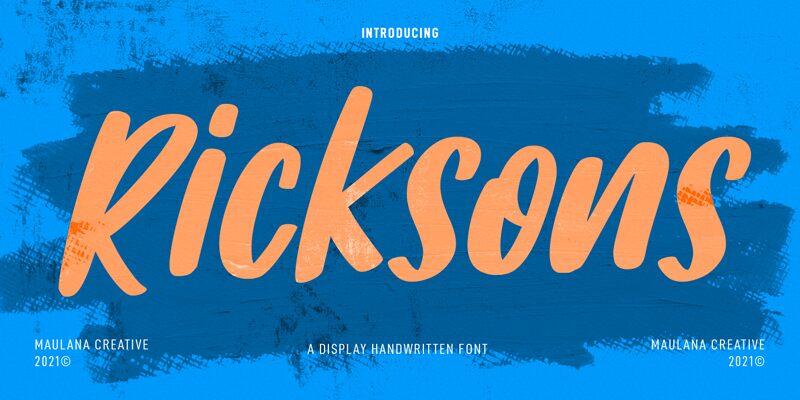
Ricksons
Introducing Ricksons - a bold and condensed marker font designed by Maulana Creative. With its striking appearance, this font is perfect for projects that require a strong and impactful design. It's ideal for creating eye-catching logos, posters, album covers, and more. Whether you're looking to add a touch of edginess or make a statement with your design, Ricksons is the perfect choice. Its unique style will capture the attention of your audience and leave a lasting impression. Try it out today and see how it can elevate your next project to new heights!